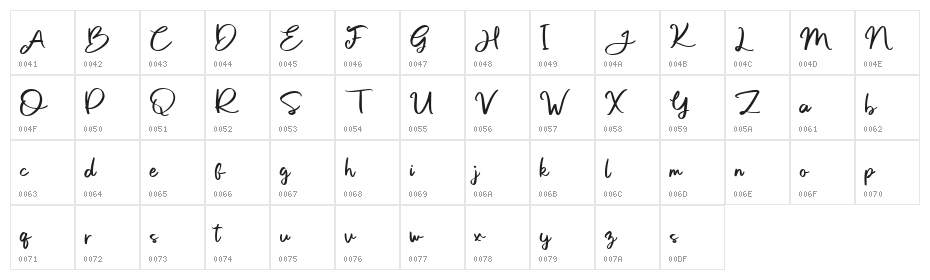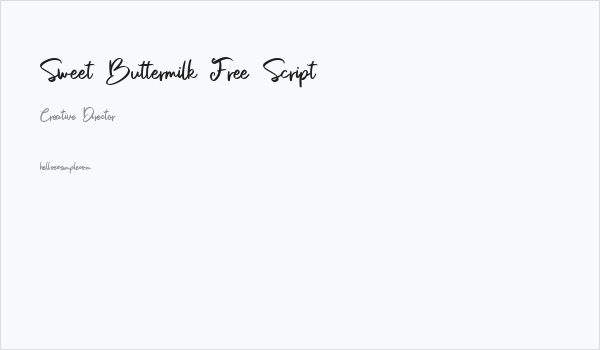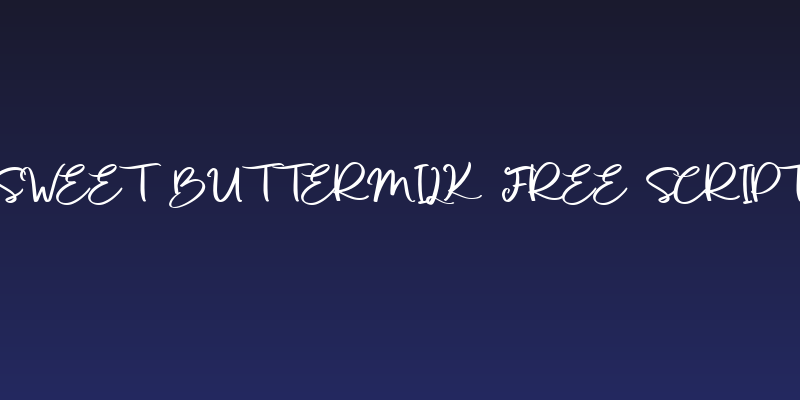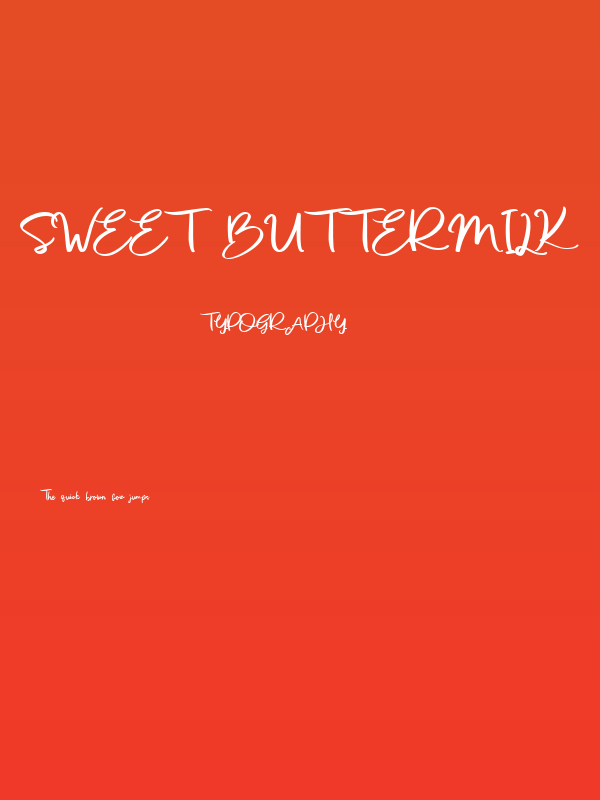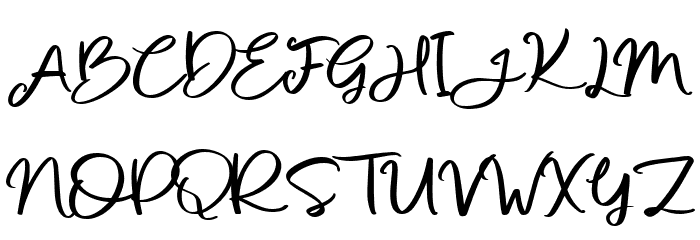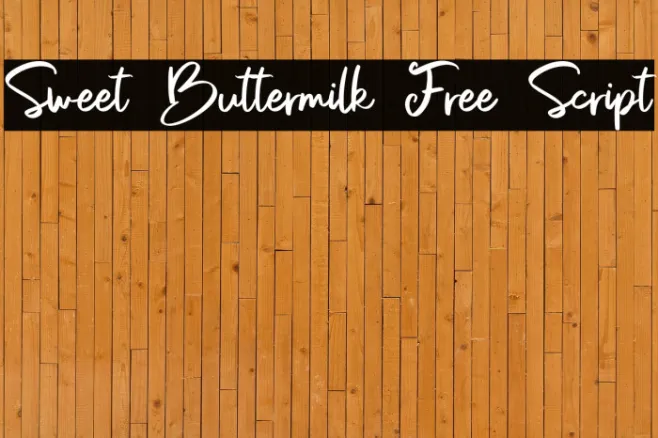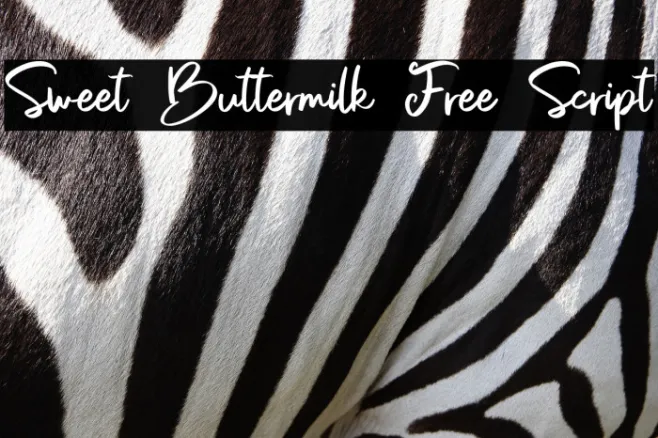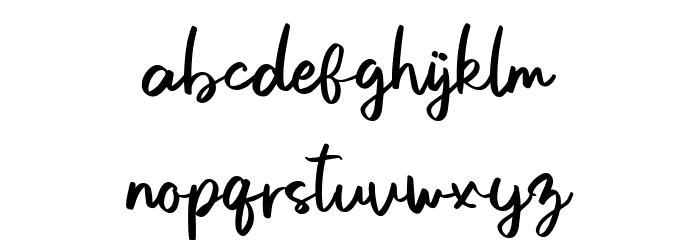
Sweet Buttermilk Free Script Font
Sweet Buttermilk Free Script Description
This font exudes a playful and elegant script style, characterized by its fluid and connected letterforms. The uppercase letters feature graceful loops and swirls, adding a touch of sophistication, while the lowercase letters maintain a smooth and consistent flow. The overall appearance is both whimsical and refined, making it ideal for creative projects. The font's strokes vary in thickness, providing a medium contrast that enhances readability while maintaining its decorative appeal. The spacing between characters is normal, ensuring a balanced and harmonious look.
| Use Case | Logos, Invitations, Social Media Graphics |